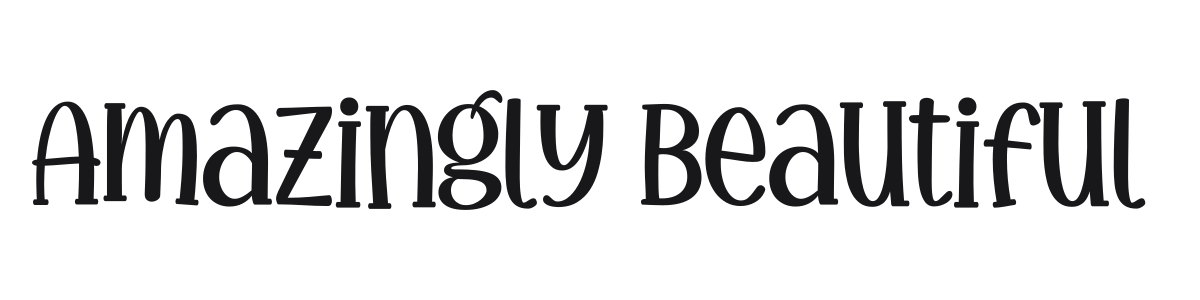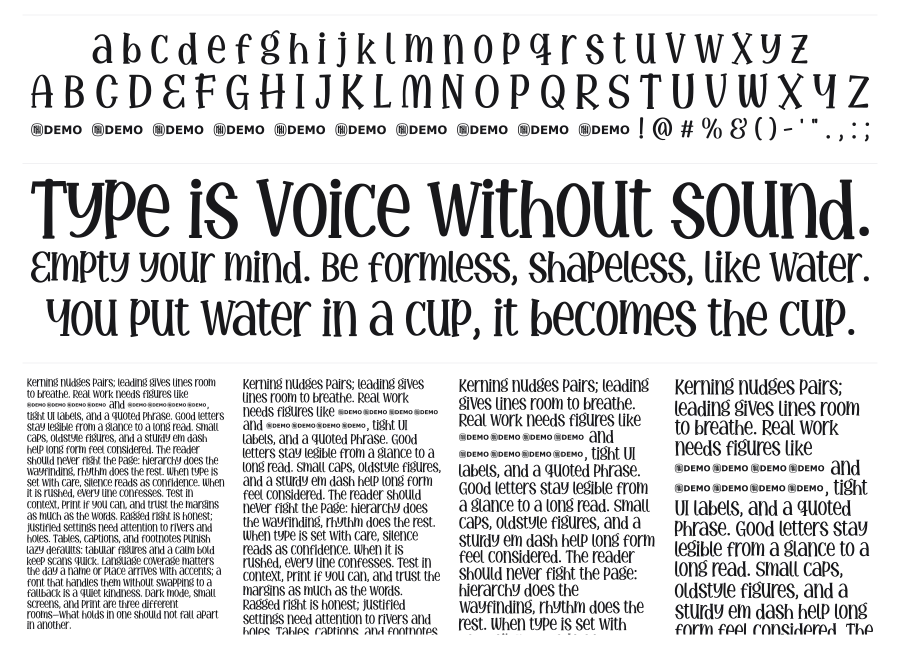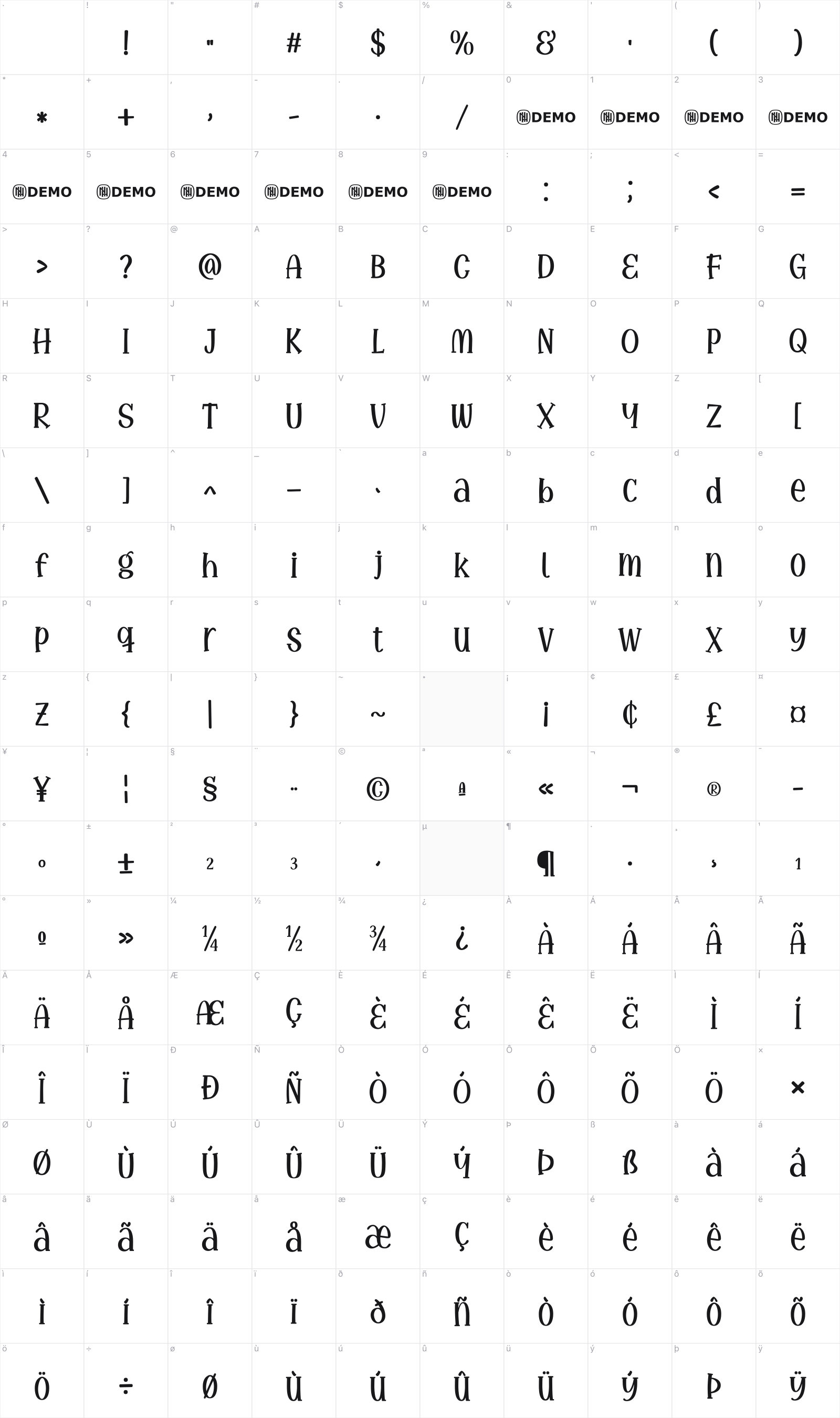
Amazingly Beautiful
Amazingly Beautiful is a high-contrast display serif with a bouncy, handcrafted character. Letters vary subtly in height and proportion, giving text a lively rhythm that feels hand-lettered rather than mechanical. The bold strokes and ball terminals make it a strong choice for branding, packaging, and editorial headlines that want warmth alongside presence.